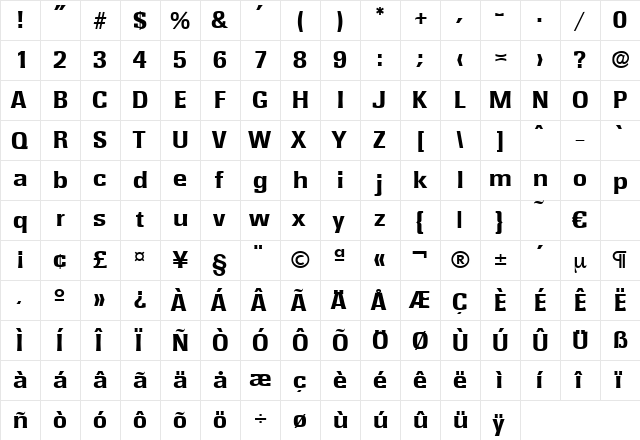
Rochester-Bold Regular
Design Context for Rochester-Bold Typeface
Rochester-Bold takes a measured approach to typography — its balanced proportions and neutral character make it a reliable workhorse for both digital and print work. The heavy weight commands attention and anchors typographic hierarchies.